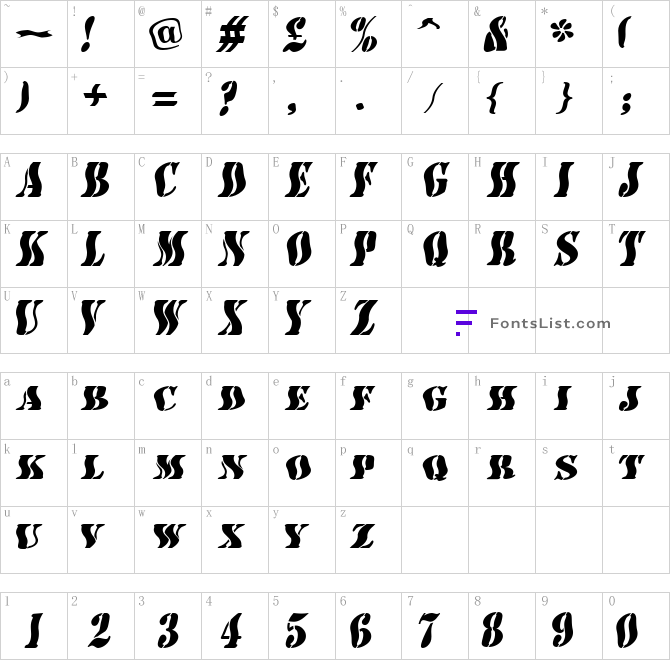
• Font Name:AustralianFlyingCorpsStencilSD
• Subfamily:Perry Mason AustralianFlyingCorpsStencilSD
• Full Name:AustralianFlyingCorpsStencilSD
• PostScript:AustralianFlyingCorpsStencilSD
AustralianFlyingCorpsStencilSD.ttf is a very beautiful artistic font, AustralianFlyingCorpsStencilSD.ttf is widely used in the design and printing of various books and pictures,AustralianFlyingCorpsStencilSD.ttf has a strong visual impact,AustralianFlyingCorpsStencilSD.ttf is a commonly used font in newspapers, magazines and books, and is used in posters, e-commerce Poster design, store design, logo design, font design and other fields.AustralianFlyingCorpsStencilSD.